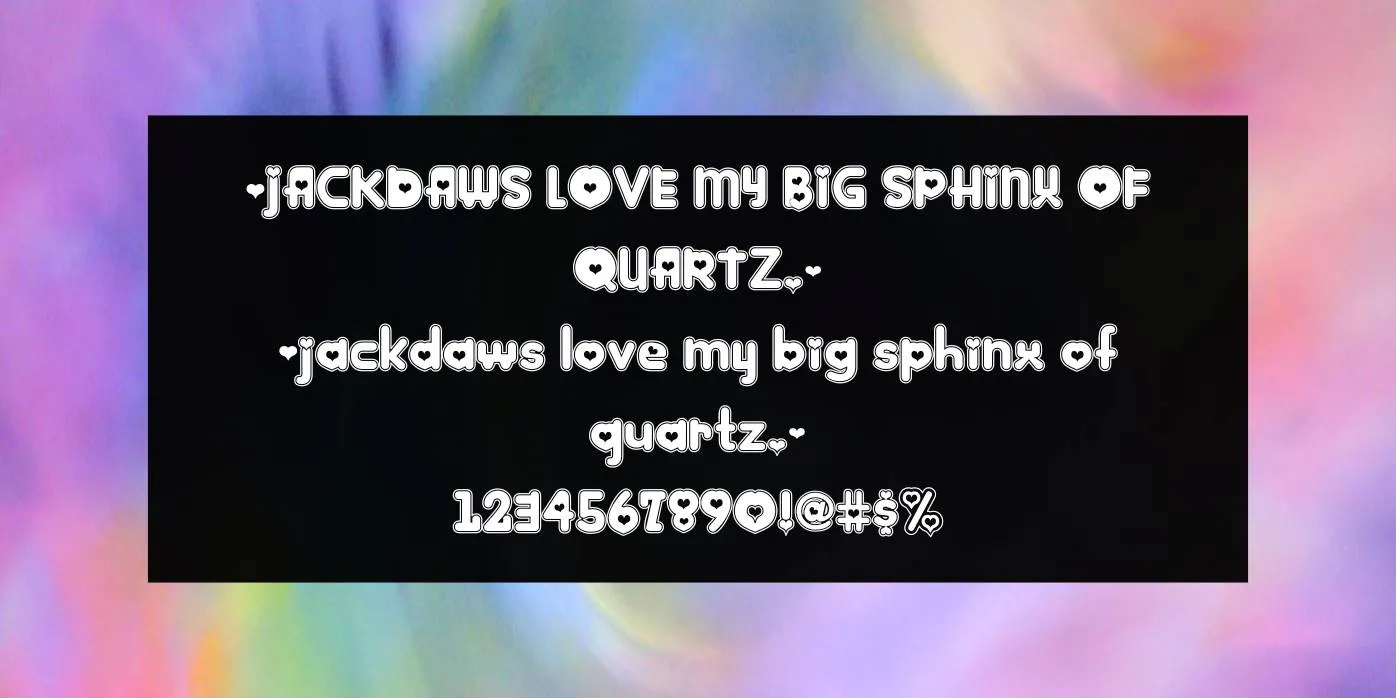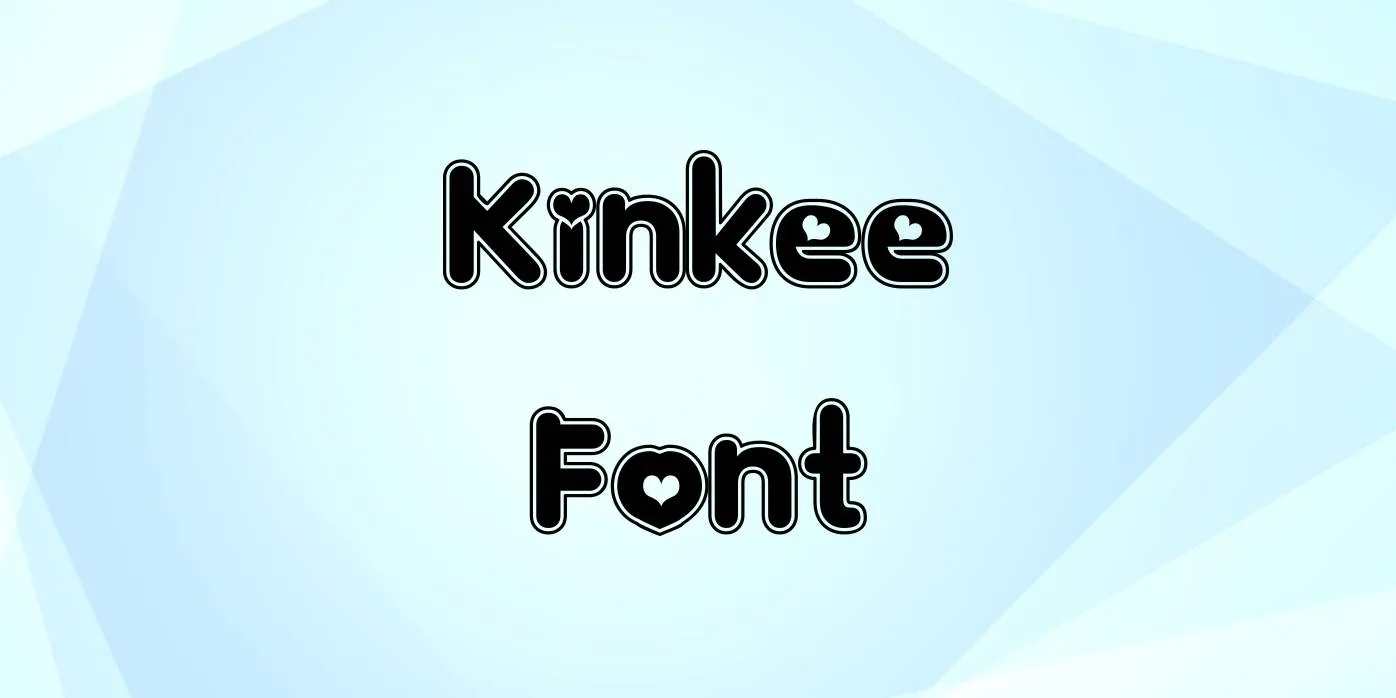
Kinkee Font
Here we discuss detailed information about a very lovely and unique font Kinkee. It is a very loveable font as it is designed for Valentine or holidays. This typeface was designed by a famous font design team Fontalicious. It is used by many organizations and companies for making their brand’s products.
This typeface has a quality in its some characters like (A, B, D, P, Q, R) Alphabets have a heart shape in their spaces which gives much attractive look to your projects. It contains 254 characters, 165 glyphs, and 1000 units per Em. An online generator tool also supports it in which you can change or check your text and design without downloading the font. Embedding rights are restricted for this font.
The weight of the font is Bold and its width is medium (normal). Mac style followed by it is Italic and the pattern is outlined. It supports file formats TTF (True Type Font) and OTF (Open Type Font). You can download it on many devices such as Windows, Mac, and Linux.
It can also be used for pairing with other fonts like yessy font to give a more attractive look to your projects. Usage You can use this font for making so many different projects with a very unique and different look. This font has characters, symbols, numbers, capital letters, small letters, punctuations, and special characters. It is good for making different types of headlines and headings.
This font is a good choice for making both types of media print and digital media. You can make website designs and graphic designs by using them. On Adobe Photoshop and other Illustrators, you can make different designs with this font. Its amazing personality is used for making flyers, posters, and banners.
Is Kinkee Font good for making posters? You can make attractive and unique posters by using this font. Its characters have some special features which make your project look so much lovely.